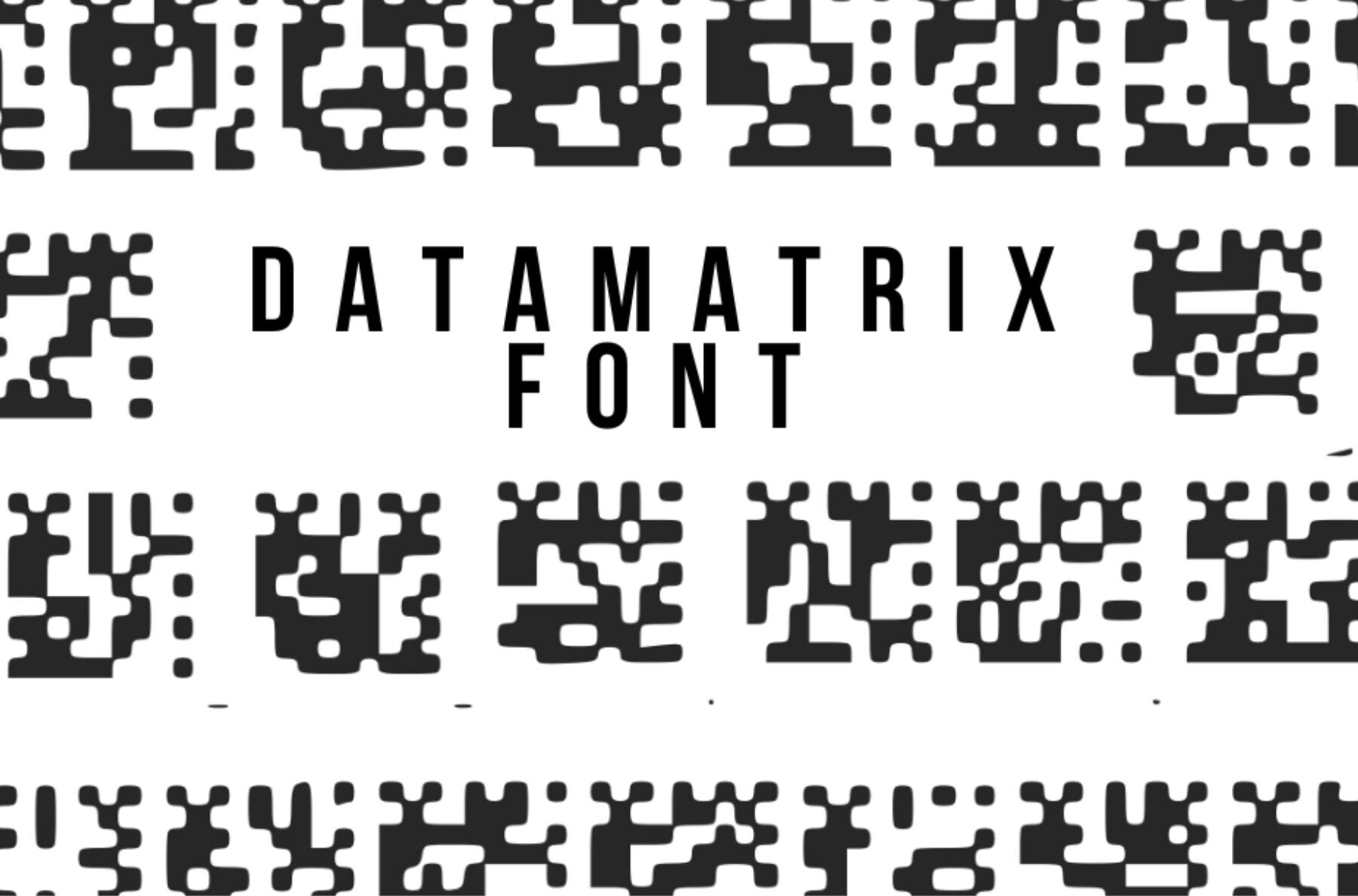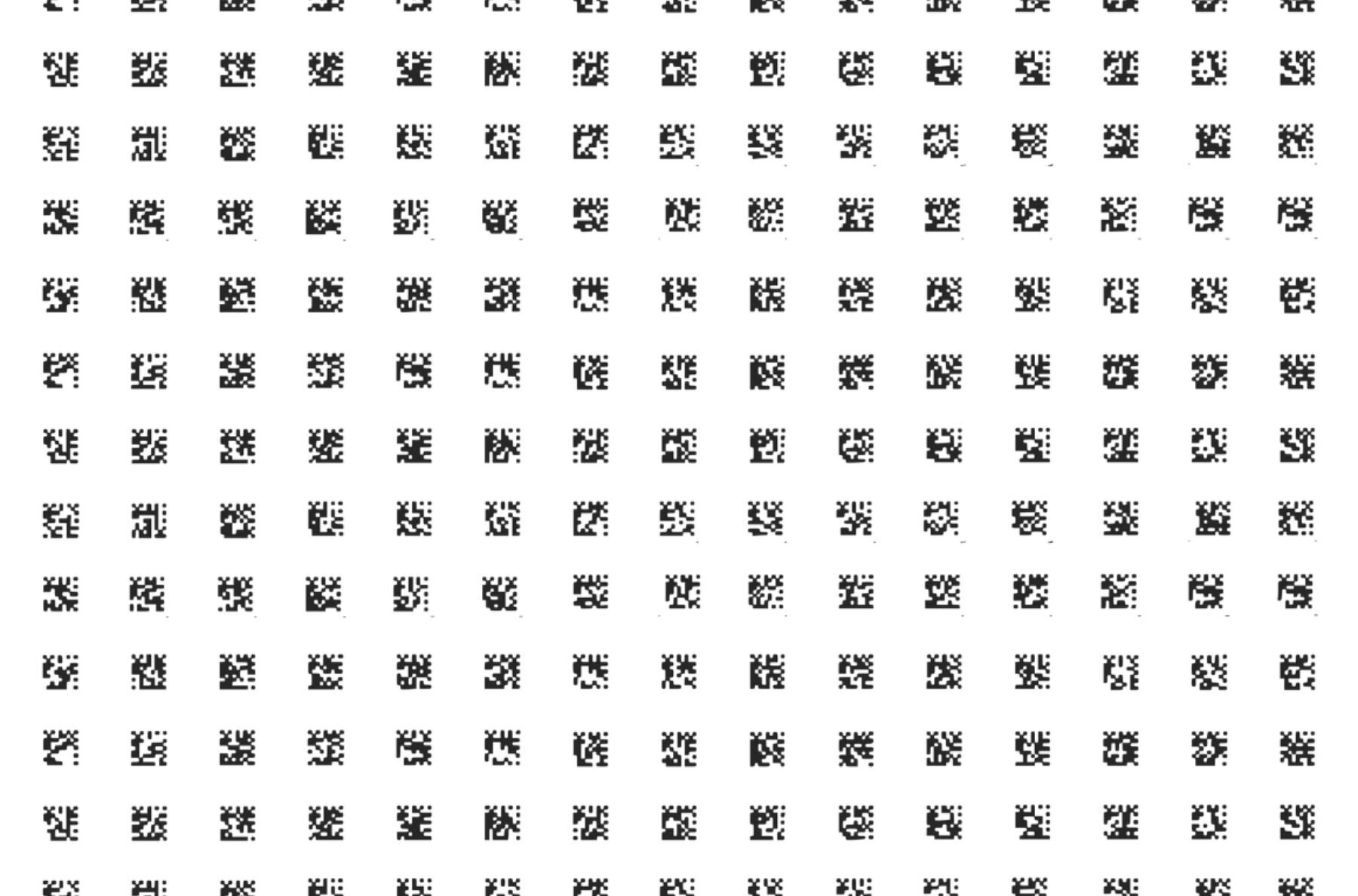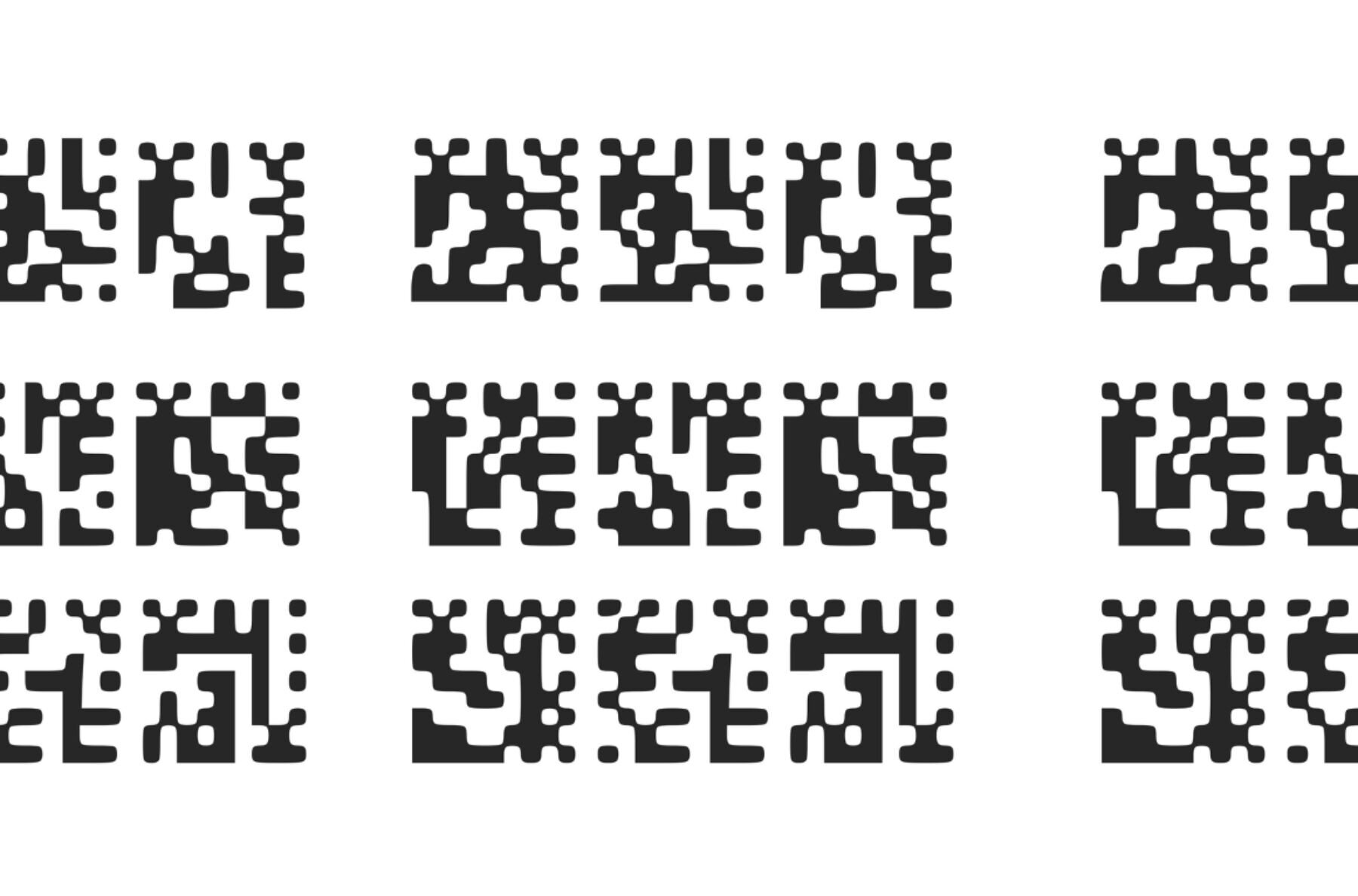
Datamatrix Font
Datamatrix
Datamatrix is an inventive dingbat font that features a variety of glyphs to create intricate 2D QR codes. Composed of black and white modules, these codes form a compact square pattern, making them an ideal choice for projects that demand a technological touch. Whether you're working on retail visuals, crafting engaging website elements, or designing tech-inspired creations, Datamatrix offers a stylish and functional solution. Elevate your design projects with this modern and versatile font.Datamatrix Dingbat Font
Perfect for Tech-Savvy Projects